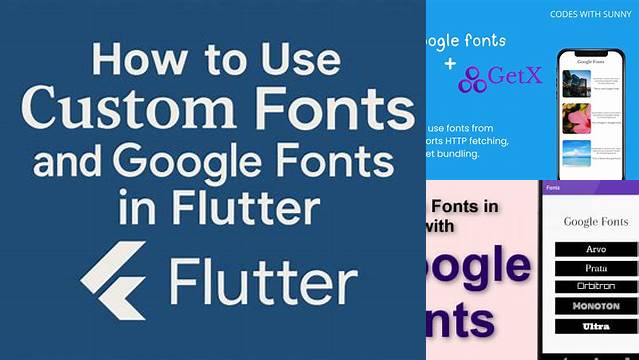
Google Fonts In Flutter: A Simple Integration Guide
Hey guys! Ever wondered how to make your Flutter app look amazing with those cool Google Fonts? You're in the right place! In this comprehensive guide, we'll walk through the process of integrating Google Fonts in Flutter, step by step. We'll cover everything from the basic setup to more advanced techniques, ensuring your app has the perfect typography. So, buckle up and let's dive in!
Understanding the Importance of Typography in App Design
Before we jump into the how-to, let’s chat about why typography is so crucial in app design. Think about it: the fonts you use can completely change how users perceive your app. A sleek, modern font can give your app a professional vibe, while a playful font might be perfect for a kids' game. Good typography makes your app not only visually appealing but also enhances readability and user experience. If the text is hard to read, users will bounce, and nobody wants that!
Choosing the right fonts is about more than just aesthetics. It’s about conveying your app’s personality and ensuring your content is easily digestible. Consider the mood you want to create. Do you want your app to feel serious and trustworthy, or fun and energetic? Different fonts evoke different emotions, so this is a key decision. Also, think about your target audience. What fonts will resonate with them? For instance, a tech-savvy audience might appreciate a clean, sans-serif font, while a more creative audience might be drawn to something more unique and artistic. Keep in mind that consistency is key. Stick to a limited number of fonts throughout your app to maintain a cohesive look and feel. Using too many different fonts can make your app look cluttered and unprofessional. Aim for a primary font for headings and a secondary font for body text. This creates a visual hierarchy and makes your content easier to scan. And don't forget about accessibility! Ensure your chosen fonts are legible for users with visual impairments. Use sufficient contrast between the text and background, and consider font sizes that are easy to read on different screen sizes. Ultimately, the right typography can elevate your app from good to great. It’s a subtle detail, but it makes a huge difference in the overall user experience. So, take the time to explore your font options and choose ones that align with your app's brand and purpose. Trust me, it’s worth the effort!
Step-by-Step Guide to Setting Up Google Fonts in Flutter
Alright, let’s get to the juicy part: how to actually set up Google Fonts in your Flutter project. Don’t worry, it’s not as intimidating as it sounds! We’ll break it down into manageable steps.
3. Applying Google Fonts to Your Text Styles
This is where the magic happens! To apply a Google Font in Flutter, you’ll use the GoogleFonts class. This class provides a bunch of static methods that return TextStyle objects, each representing a different Google Font. Let's say you want to use the Roboto font. You can apply it to your Text widget like this:
In this example, GoogleFonts.roboto() returns a TextStyle object with the Roboto font applied. We’re also setting the fontSize to 24, but you can customize other properties like fontWeight, fontStyle, and color as well. The GoogleFonts class supports a wide range of font properties, allowing you to fine-tune the appearance of your text. You can even specify different font weights, such as fontWeight: FontWeight.bold for a bolder look, or fontStyle: FontStyle.italic for italicized text. This flexibility makes it easy to create visually appealing and consistent typography throughout your app. But the fun doesn't stop there! You can also chain multiple style properties together to create truly unique text styles. For instance, you could combine a specific font, font weight, and color to achieve the perfect look. This level of customization gives you the power to express your app's personality and brand through typography. Experiment with different fonts and styles to see what works best for your design. Don't be afraid to try new things and push the boundaries of your creativity. Remember, good typography is about more than just aesthetics; it's about readability and user experience. So, choose fonts that are easy to read and that complement your app's overall design. With the google_fonts package, applying Google Fonts in Flutter is a breeze. So, go ahead, start styling your text and watch your app come to life!
4. Customizing Font Styles (Weight, Style, etc.)
As we touched on earlier, the GoogleFonts class lets you customize your font styles extensively. You can adjust the fontWeight, fontStyle, letterSpacing, and more. For example, to use Roboto with a bold weight and italic style, you can do this:
This gives you complete control over how your text looks. You can mix and match different properties to create the perfect typography for your app. Think of these customization options as the artist's palette for your text. Just like an artist mixes colors to create a masterpiece, you can combine different font properties to achieve the desired visual effect. Experiment with different font weights, such as FontWeight.w100 for extra-light, FontWeight.w500 for medium, and FontWeight.w900 for black, to add emphasis and hierarchy to your text. The fontStyle property allows you to switch between normal and italic styles, while letterSpacing and wordSpacing can be used to adjust the spacing between letters and words, respectively. These subtle adjustments can make a big difference in the overall readability and visual appeal of your text. For instance, increasing the letter spacing can make a font appear more modern and airy, while decreasing it can create a more compact and dense look. The possibilities are endless! Don't be afraid to play around with these properties and see how they affect the appearance of your text. Remember, the goal is to create typography that is not only visually pleasing but also functional and easy to read. So, take the time to explore these customization options and discover the perfect styles for your app. With a little experimentation, you can transform your text from ordinary to extraordinary!
And there you have it! You’ve learned how to integrate Google Fonts in Flutter, customize them, and even optimize them for performance. Using Google Fonts can really elevate your app’s design, making it more visually appealing and user-friendly. So, go ahead and experiment with different fonts and styles to find the perfect look for your app. Happy coding, guys!